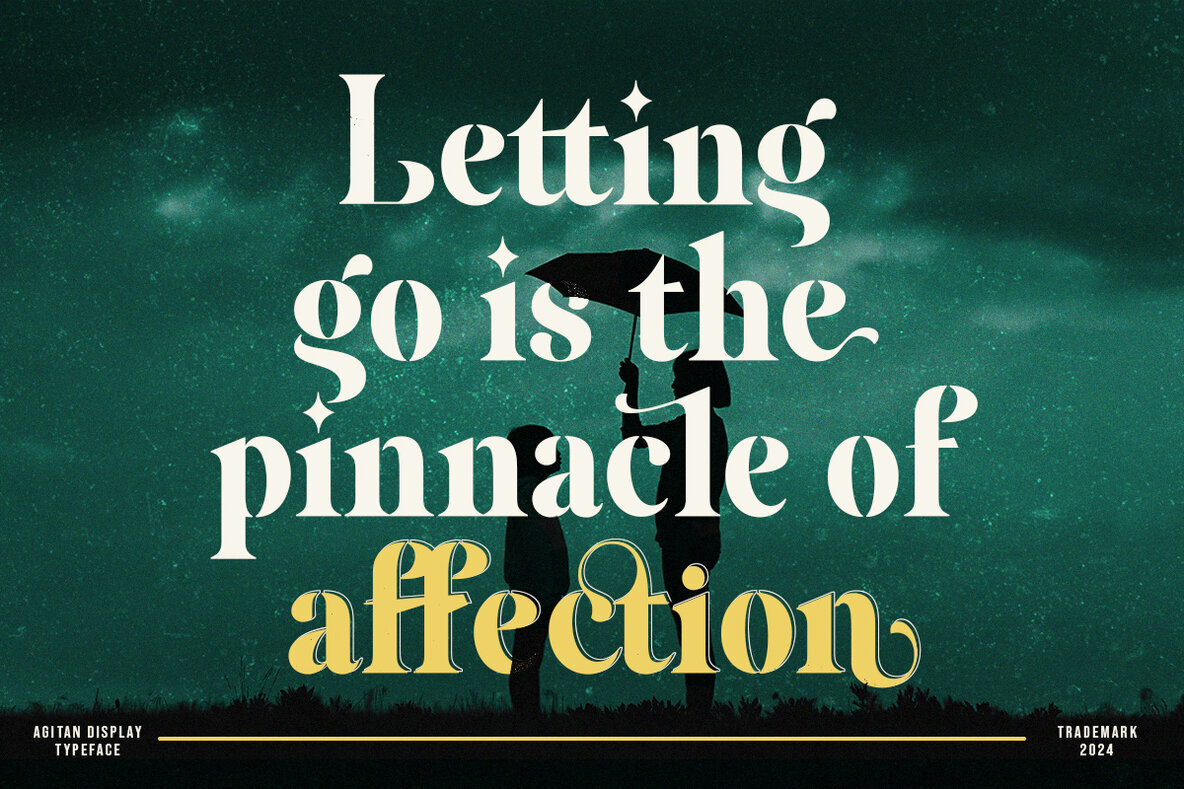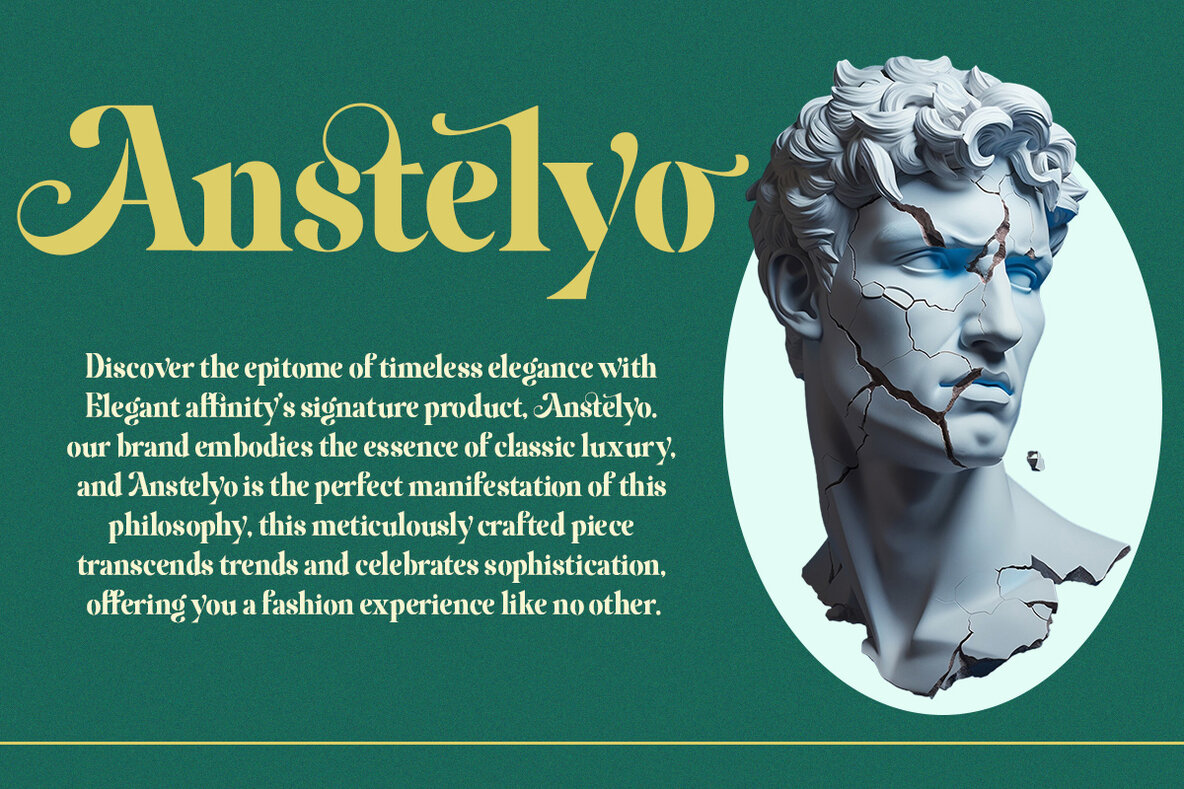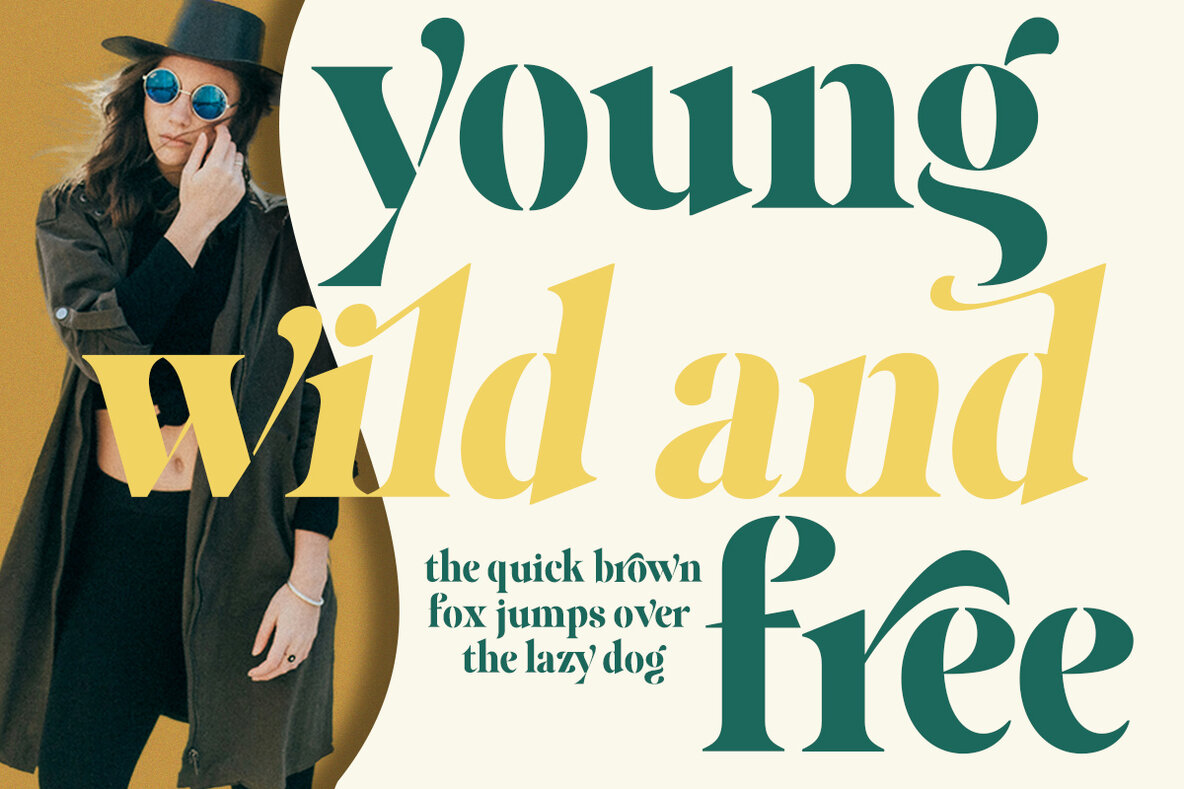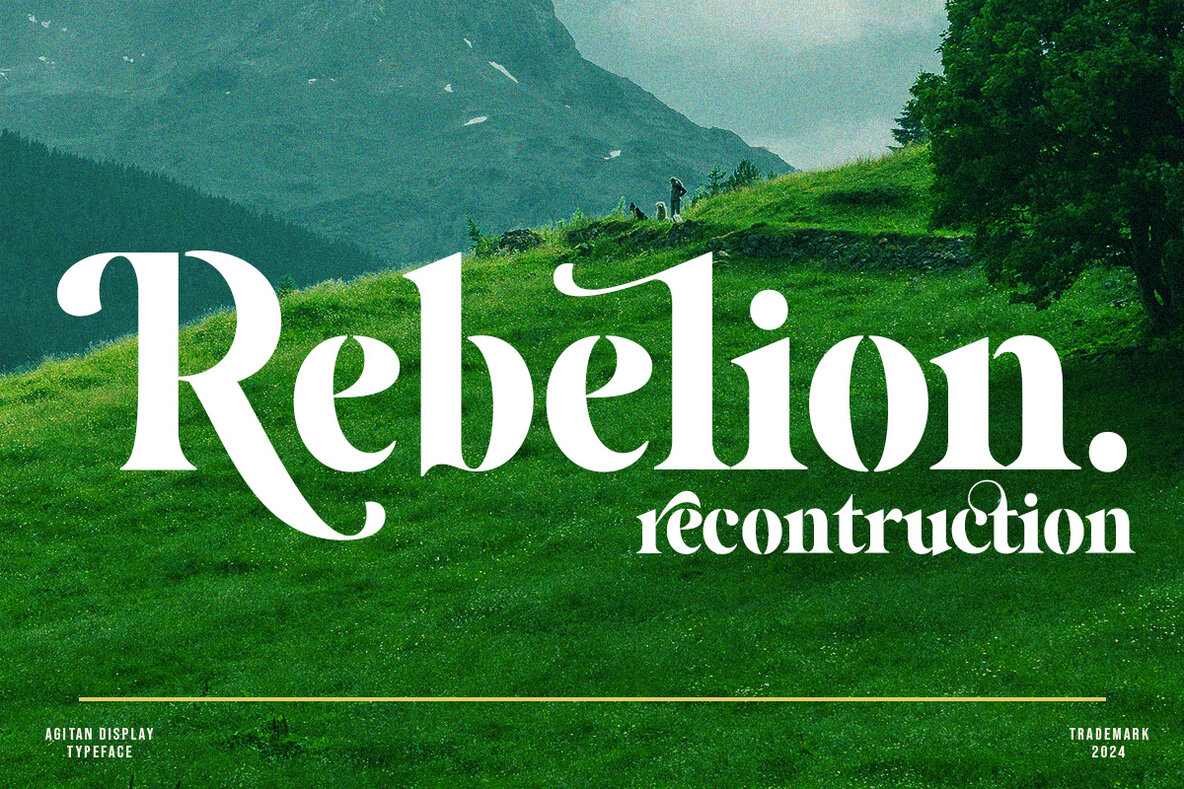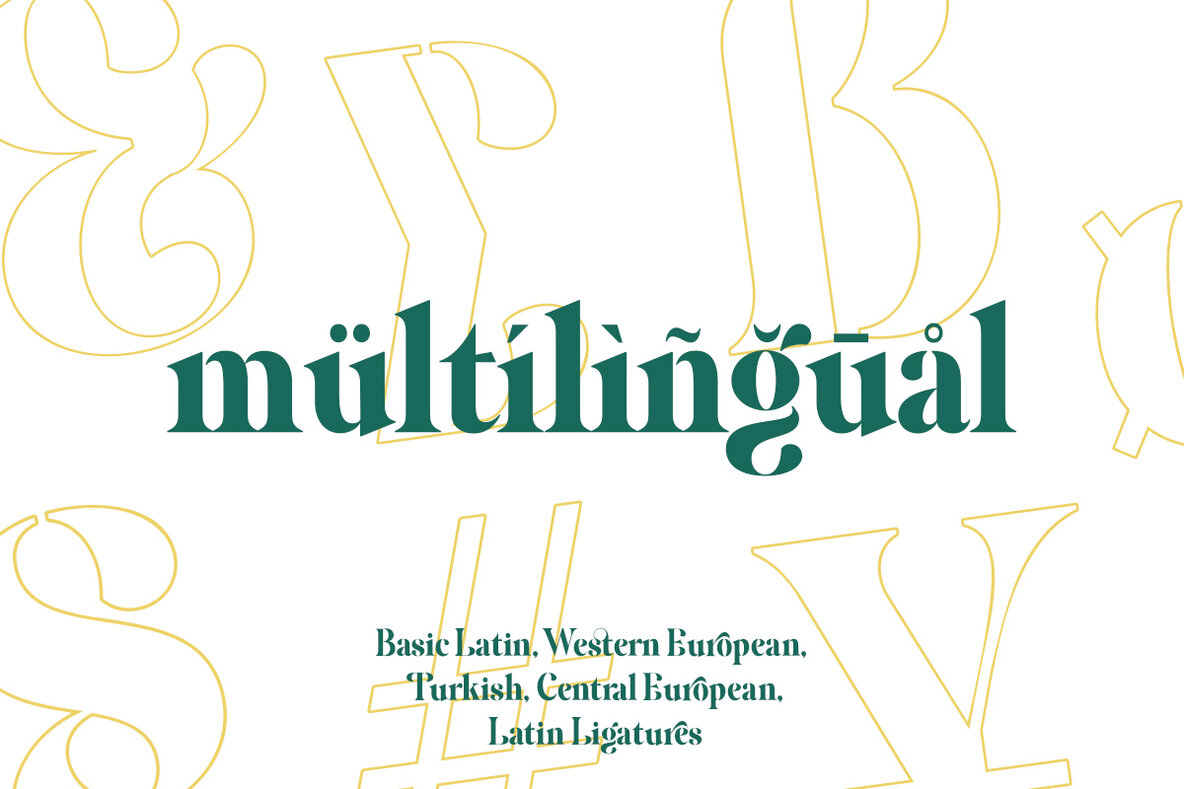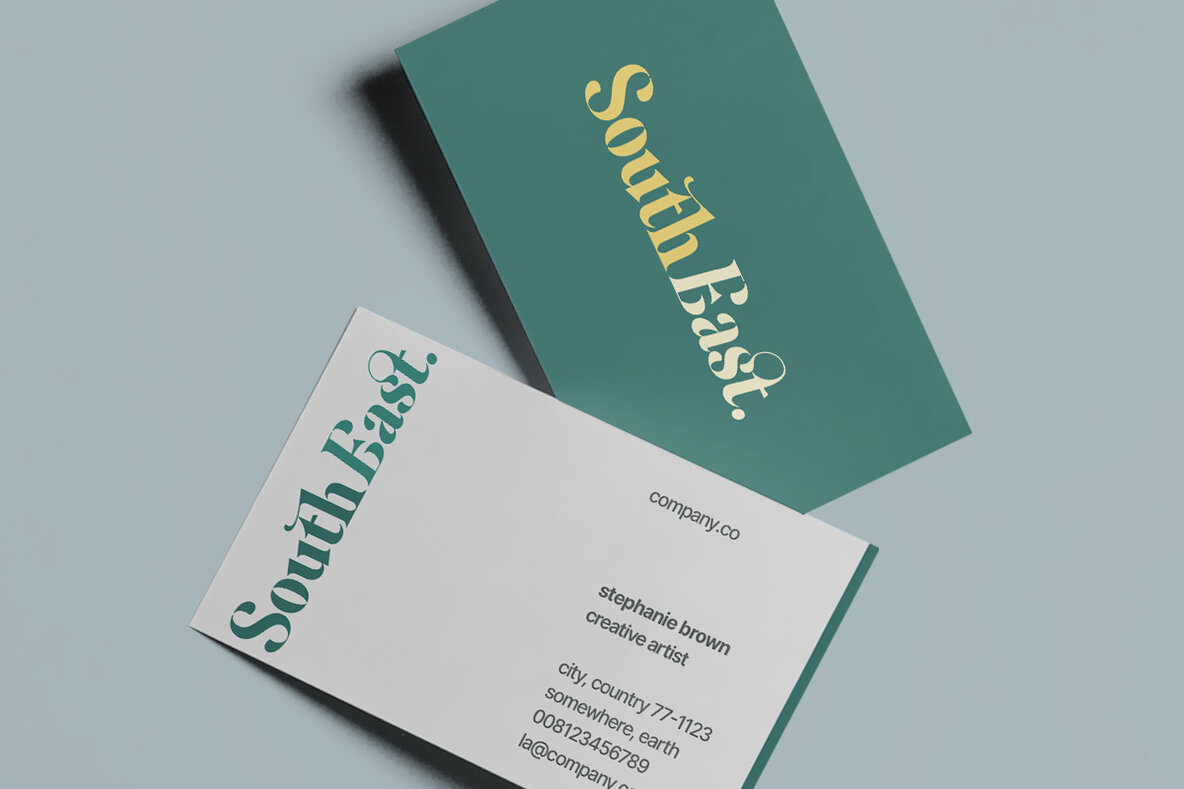
Agitan Display Font
Agitan Display by Areatype is a serif display font known for its unique, feminine, and elegant attributes. This font is perfect for projects requiring a touch of sophistication.Agitan Display: Elegant Serif with Feminine Style